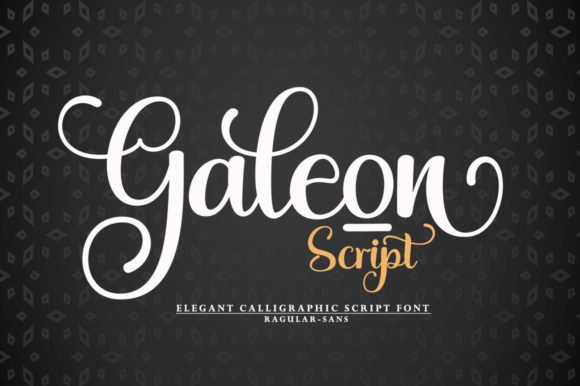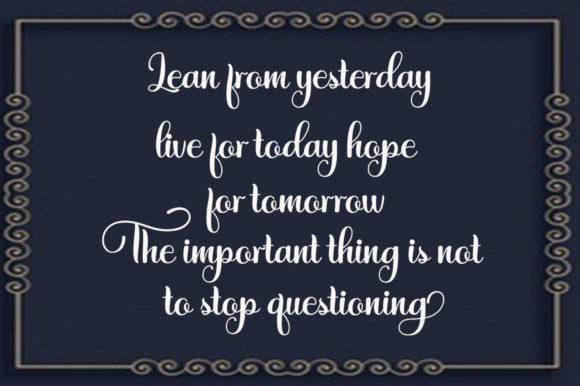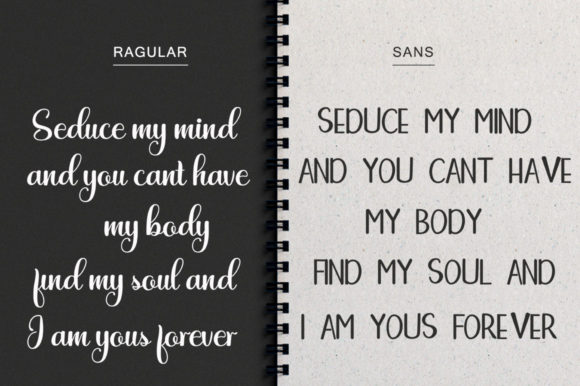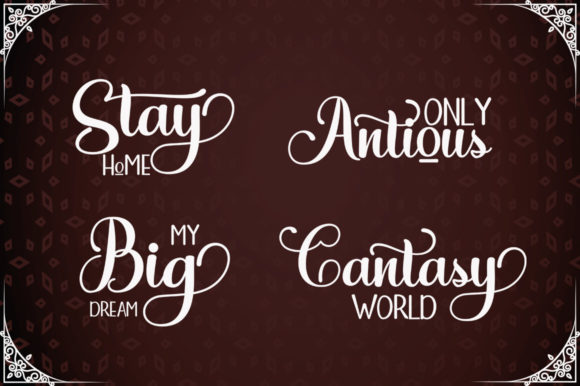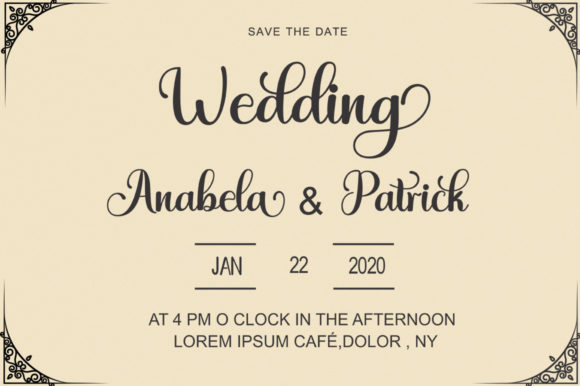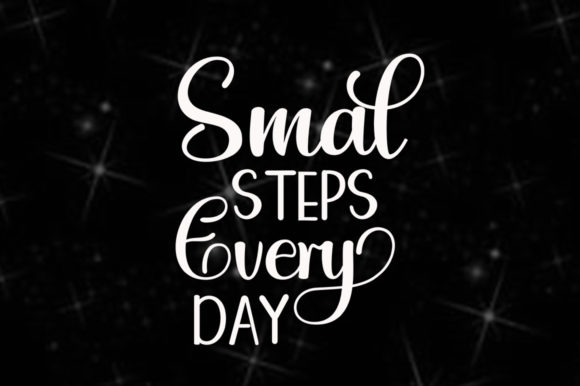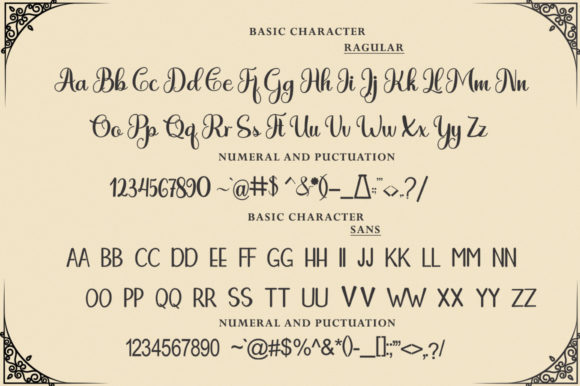
Enter the Galeon Script Font, a beautifully crafted duo font that combines the elegance of sans serif with the whimsy of script. With its PUA encoding, accessing the intricate details and swashes is a breeze, making it the perfect companion for any design project. Whether you’re creating invitations, wedding stationery, or branding materials, Galeon Script Font is the perfect choice to add a touch of personality and charm.
With its versatility and ease of use, the Galeon Script Font is a valuable addition to any designer’s toolkit, offering endless possibilities for creative expression and design innovation.
Galeon Script Font Key Features
- Font Family: Galeon Script, a beautiful script font with elegant and refined strokes.
- Unique Characteristics: Features elegant, flowing strokes and subtle flair, making it perfect for creating elegant and sophisticated designs.
Galeon Script Font Review
As a designer, I was excited to try out the Galeon Script Font. Here’s my honest review.
- The font’s elegance and sophistication are perfect for high-end branding and marketing materials.
- Galeon Script’s flowing connections between letters make it a great choice for logotypes and custom typography projects.
- The font family includes multiple weights, which provides a lot of flexibility for designers to experiment with different styles.
- The font’s script style can be challenging to read in certain contexts, such as body text or captions.
- The font family could benefit from additional support for smaller text sizes and styles.
- The font’s unique characteristics can make it difficult to pair with other fonts, limiting its versatility.
Galeon Script is a beautiful and elegant font that shines in specific contexts. While it has its limitations, it’s a great choice for designers who want to create high-end, sophisticated designs. However, it may not be the best fit for projects that require high readability or flexibility in font pairing.
Tips for Getting the Most Out of the Galeon Script Font
To get the most out of the Galeon Script Font, try the following:
- Use it for titles and headings to add a touch of elegance.
- Combine it with other fonts to create a unique and eye-catching look.
The Galeon Script Font is commonly used for:
- Branding and logos.
- Editorial
Alternatives to Galeon Script Font
Playfair Display is a luxurious and elegant script font that is perfect for high-end designs, such as wedding invitations, luxury branding, and fine art prints.
Compared to Galeon Script Font, Playfair Display has a more refined and sophisticated look, making it ideal for projects that require a touch of luxury and sophistication.
Lobster is a bold and playful script font that is great for creative and modern designs, such as advertising, fashion, and entertainment branding.
Compared to Galeon Script Font, Lobster has a more energetic and fun personality, making it perfect for projects that require a bold and attention-grabbing look.
Great Vibes is a modern and stylish script font that is ideal for designs that require a sense of movement and energy, such as sports, music, and lifestyle branding.
Compared to Galeon Script Font, Great Vibes has a more dynamic and expressive look, making it perfect for projects that require a sense of excitement and dynamism.